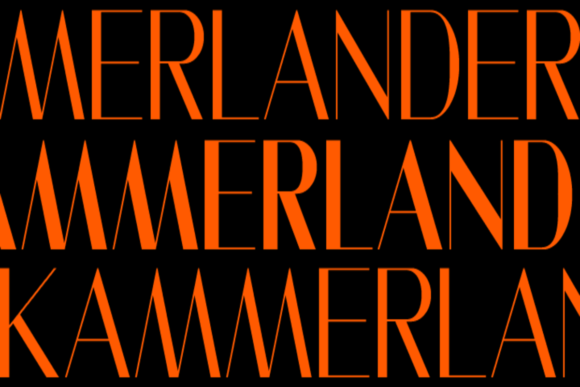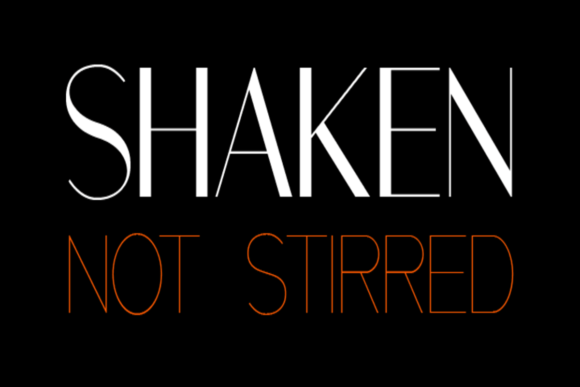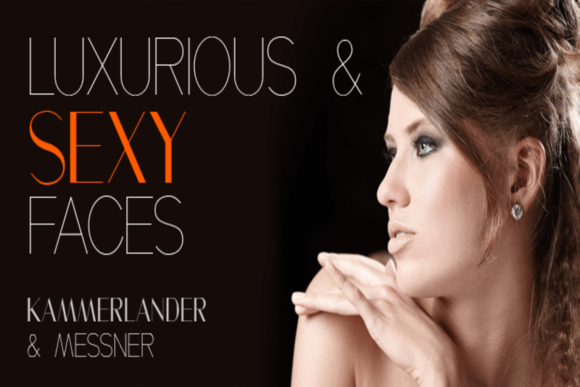
Introduction to Kammerlander Font
Remember the moment when you’re working on a creative project and you’re struggling to find the perfect font to elevate your design? It’s like searching for the missing piece of a puzzle that brings everything together. That’s exactly what happened when designers stumbled upon the Kammerlander Font family, a stunning Art Deco collection that has become a go-to resource for many.
| 👤 Author | Juraj Chrastina |
As a valuable design resource, Kammerlander Font is not only aesthetically pleasing but also high-quality and versatile, making it an excellent choice for designers who want to add a touch of elegance to their work. With its unique combination of thick and thin lines, this font family is perfect for creating eye-catching headings, titles, and even logos.
Key Features of Kammerlander Font
- Has a modern, elegant feel, making it perfect for use in branding, advertising, and other creative projects where a sophisticated look is desired.
- Is a versatile font that can be used for a variety of purposes, from headings and titles to body text and captions.
Honest Review: Kammerlander Font
I recently stumbled upon the Kammerlander Font while searching for a high-quality design resource for my next creative project. As a designer, I was thrilled to discover a free download that met my expectations.
Here are some features that I found particularly useful:
- ✨ High-quality design: The font is meticulously crafted with attention to detail, resulting in a visually appealing and professional look.
- ✨ Transparent background: This feature makes it easy to integrate the font into various design elements, ensuring a seamless user experience.
- ✨ Versatility: The Kammerlander Font is suitable for a wide range of creative projects, from graphic design to digital art.
- ⚠️ Limited character set: The font may not include all the characters you need for your specific project.
- ⚠️ Not ideal for small text: The font may become pixelated or difficult to read when used for small text sizes.
Overall, I’m impressed with the Kammerlander Font and would recommend it to designers looking for a high-quality, free design resource. While it may have some limitations, its strengths far outweigh its weaknesses.
The Kammerlander Font is ideal for creating high-quality designs for presentations, posters, and flyers. Its transparent background makes it easy to use in designs with images or other graphics. You can also use it for creative projects such as logos, business cards, and social media graphics.